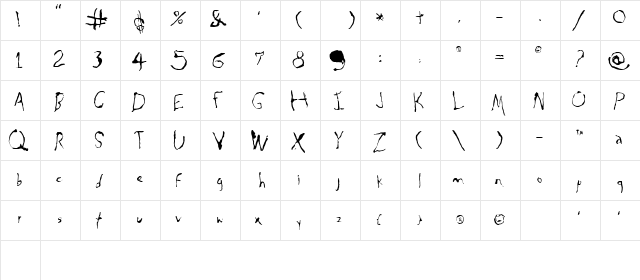
Gim Regular
Design Context for Gim Typeface
Gim is a composed and adaptable typeface that performs quietly and consistently across a wide range of design contexts.